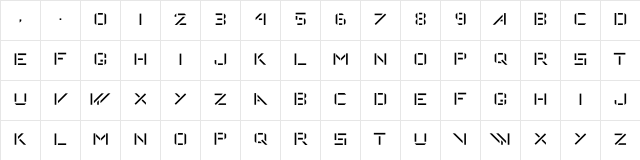
DeStijl Stencil Free Font
DeStijl Stencil
Style: Stencil
DeStijl Family
DeStijl Stencil
Design Context for DeStijl
DeStijl borrows the utilitarian aesthetic of stencil lettering, with its characteristic cutaways and no-frills construction lending an industrial edge.
Pro Tip: Use DeStijl at large sizes on packaging, posters, or apparel where the stencil cutaways read clearly. Avoid small sizes where those gaps become visual noise.